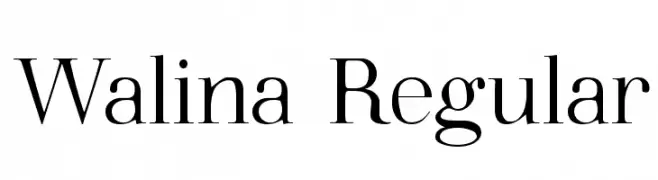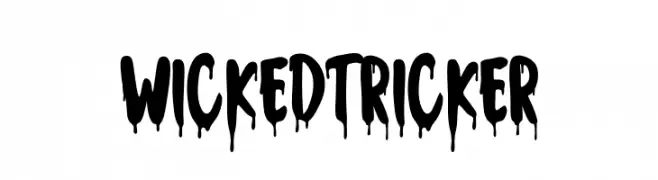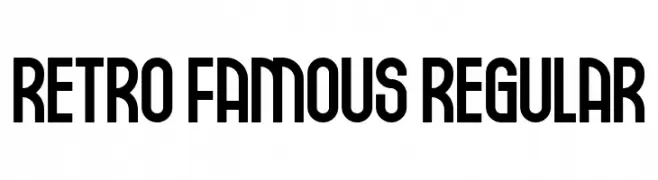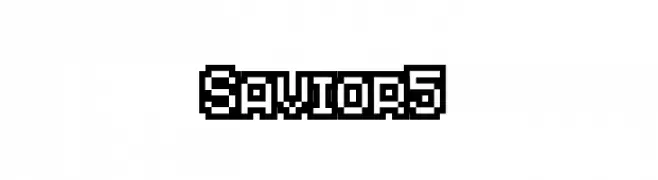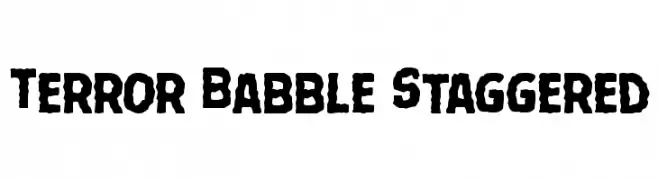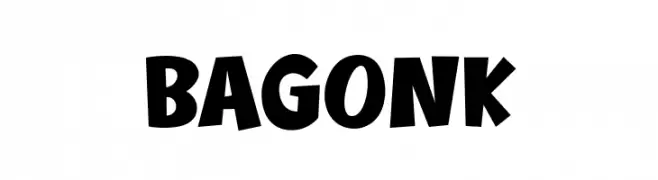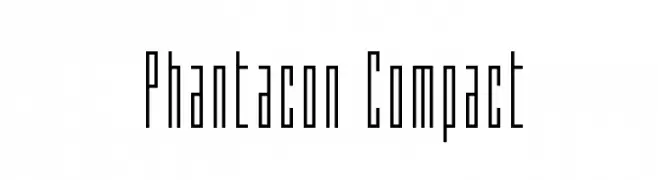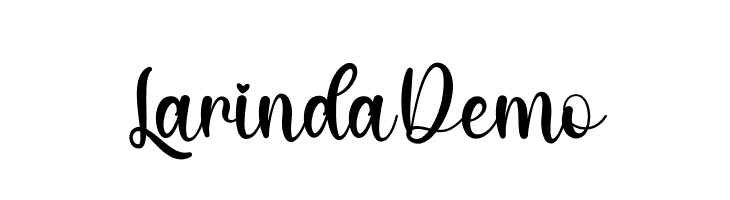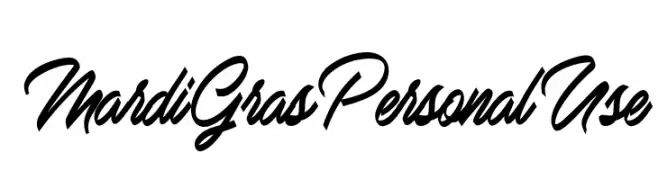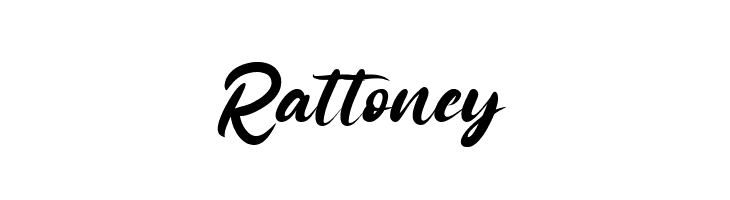
A classic serif font with elegant strokes and sharp serifs.
A bold, playful handwritten font with dynamic strokes.
A bold, dripping font perfect for eerie and spooky designs.
A bold, geometric font with a retro-modern style.
A bold, pixelated font with a retro, digital aesthetic.
A playful font with cheerleader graphics and bold, uppercase letters.
A bold, rugged font with jagged edges and a distressed, hand-drawn style.
A bold, playful font with exaggerated, uneven strokes and a lively appearance.
An elegant and artistic script font with flowing, intricate letterforms and decorative flourishes.
A modern, narrow font with a sleek, elongated design.